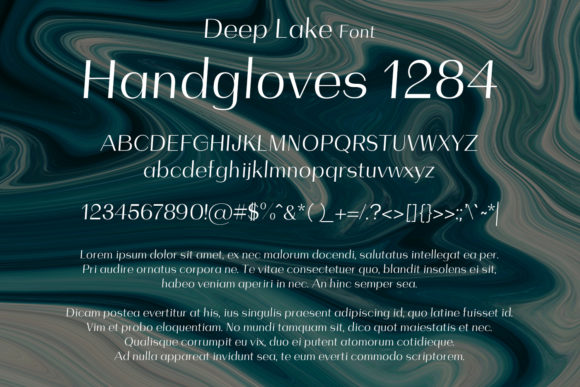
Discover the Elegance of Deep Lake Font: A Minimal Sans Serif for Every Design Need
In the vast world of typography, finding the perfect font that balances elegance with simplicity can be a daunting task. However, for those in the know, Deep Lake Font stands out as a beacon of minimalistic sophistication. This sans serif font, with its clean lines and uncomplicated design, has been making waves among designers and crafters alike. Let’s dive into what makes Deep Lake Font a versatile and essential addition to your typography arsenal.
The Essence of Deep Lake Font
At its core, Deep Lake Font is a minimal, yet elegant sans serif font. Its neat and simple style ensures that it can seamlessly integrate into a wide variety of designs. Whether you’re working on a branding project, a website layout, or crafting beautiful printable art, Deep Lake Font promises to elevate your work with its understated charm.
One of the key advantages of Deep Lake Font is its incredible versatility. The font’s design is broad enough to suit various themes and styles, making it an excellent go-to choice for any design project. Here are a few areas where Deep Lake Font truly shines:
- Branding and Logotypes: The clean and simple nature of Deep Lake Font makes it perfect for creating sleek and modern logos that convey professionalism and elegance.
- Web Design: For web designers, Deep Lake Font offers a highly legible and user-friendly experience, making it ideal for headings, paragraphs, and interface elements.
- Print Design: Whether you’re designing business cards, brochures, or posters, Deep Lake Font brings a touch of sophistication and clarity to your print materials.
- Crafting and DIY Projects: For crafters and DIY enthusiasts, Deep Lake Font can add a personalized and stylish touch to handmade cards, journals, and other craft projects.
Why Deep Lake Font Could Be Your New Favorite
So, what sets Deep Lake Font apart from other sans serif fonts? Here are a few reasons why it has the potential to become your favorite go-to font:
- Legibility: Deep Lake Font is designed to be easy to read, even at smaller sizes, making it perfect for body text and captions.
- Flexibility: Its simple design allows it to pair well with a wide range of other fonts, giving you endless possibilities for creative combinations.
- Elegance: Despite its minimalistic approach, Deep Lake Font exudes a sense of elegance and sophistication, suitable for high-end branding and design projects.
Getting Started with Deep Lake Font
- Experiment with Pairings: Try pairing Deep Lake Font with other fonts to discover unique and interesting combinations that can enhance your designs.
- Explore Different Sizes: Play around with different font sizes to see how Deep Lake Font performs in various contexts, from large headings to smaller body text.
Deep Lake Font is more than just a minimal sans serif font; it’s a versatile tool that can elevate a wide range of design projects. Its blend of simplicity, elegance, and legibility makes it an excellent choice for designers and crafters looking for a reliable and stylish font. Whether you’re working on a professional project or a personal crafting endeavor, Deep Lake Font is sure to become a valuable addition to your typography toolkit.